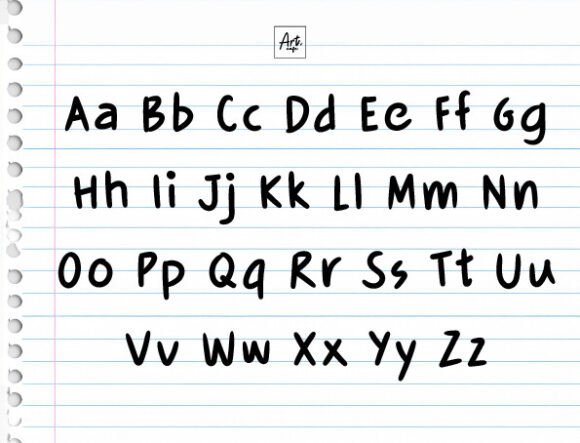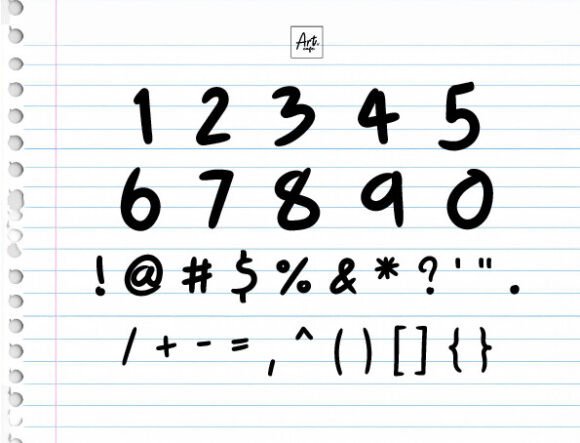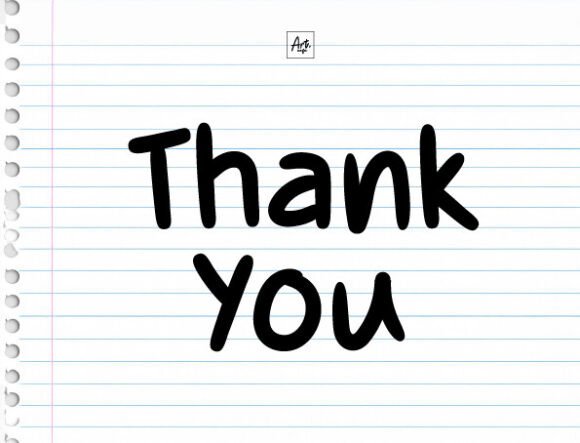
Introduction to Easy Handwriting Font
Immerse yourself in the relaxed charm of the Easy Handwriting; a display font echoing the intimacy of jotted notes.
Its effortless readability breathes a friendly air, displaying familiar lines and curves, reminiscent of the joyous scribbles in a childhood diary This versatile font boasts clean bold strokes, exuding confidence and immense readability, making it ideal for headline texts.
Key Features of Easy Handwriting Font